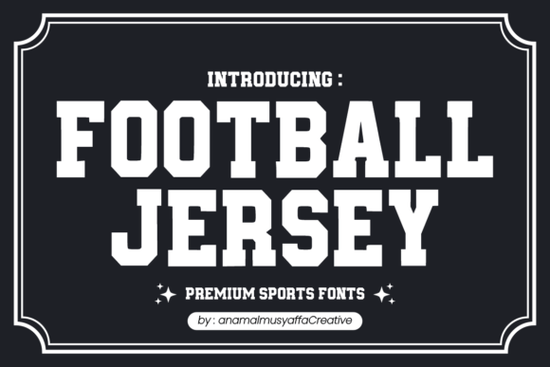
If you’ve been searching for a bold, clean typeface that instantly gives your designs that athletic edge, the Football Jersey Font might be exactly what you need. It’s built with uppercase letters only no lowercase distractions and every character carries weight without feeling clunky. Whether you’re designing team merch, custom mugs, or animated graphics, this font holds up visually while staying easy to read. And yes, it works great for both screen and print.
Who is this font actually good for?
If you run a small POD shop on Etsy or Shopify, you know customers love sports-themed gear especially personalized jerseys, hoodies, or water bottles. This font slots right into that niche. Crafters making heat-transfer vinyl projects or sublimation prints will find the thick strokes forgiving under pressure and heat. Even comic creators or YouTubers working on title cards can drop this in for instant energy.
It’s not just about football either. Think basketball camps, gym logos, fitness challenges, or even retro arcade game posters. The style nods to classic jersey lettering but doesn’t feel outdated. That balance of classic and modern is what makes it flexible.
What makes it different from other slab serifs?
You’ll find plenty of slab serif fonts out there, but not all are built for impact at a glance. The Football Jersey Font leans into uniformity each letter has consistent thickness and spacing, which matters when you’re scaling designs for different products. No wonky kerning surprises when you blow it up for a tote bag or shrink it for a keychain.
Also, because it’s uppercase-only, you don’t have to worry about mismatched heights or descenders messing with your layout. That’s a quiet win if you’re batch-processing 50 customer names for custom tees.
A few real uses we’ve seen:
- Team name banners for youth soccer fundraisers
- YouTube thumbnail titles with drop shadows
- Iron-on transfers for DIY dad hats
- Animated scoreboard intros for Twitch streamers
- Sticker packs sold on Redbubble with motivational quotes
Does it pair well with other fonts?
Surprisingly well. Try setting body text in a clean sans-serif like Montserrat or Lato, then let the Football Jersey Font handle headlines or focal words. For contrast, some designers mix it with handwritten scripts think “Coach’s Pick” over a scribbled underline. Just avoid pairing it with another heavy slab; things get visually noisy fast.
If you want to explore similar styles, check out Varsity or Collegiate both carry that locker-room vibe but with slightly different proportions.
Any gotchas before you buy?
Start simple. Pick one product say, a 16oz tumbler and mock up three versions: one with minimal text (just a name), one with a short slogan, and one layered over a graphic element like a starburst or stripe pattern. See how the font behaves at different sizes and against busy backgrounds.
Pro tip: Add a subtle stroke or outer glow in your design software. Even 1pt white outline can make the letters pop off dark fabrics or photos. Don’t overdo effects the strength of this font is its clarity, not its complexity.
And if you’re selling digitally? Bundle it. Offer the font + a set of premade jersey templates as an upsell. Customers love shortcuts, and you’ve already done the heavy lifting.
Quick checklist before your first project:
- Test print or preview at actual size phone screens lie.
- Check character support does it have the symbols or accented letters you need?
- Save a backup of the original .otf or .ttf file cloud storage isn’t foolproof.
- Name your layers if you’re designing in Illustrator or Photoshop. Future-you will thank present-you.
This isn’t a font that demands attention with swirls or gimmicks. It works because it’s dependable the kind of typeface you keep coming back to when deadlines loom and clients want “something sporty but not cheesy.” Give it a spin on your next quick-turnaround project. Worst case? You’ve got a solid fallback option saved for next time.